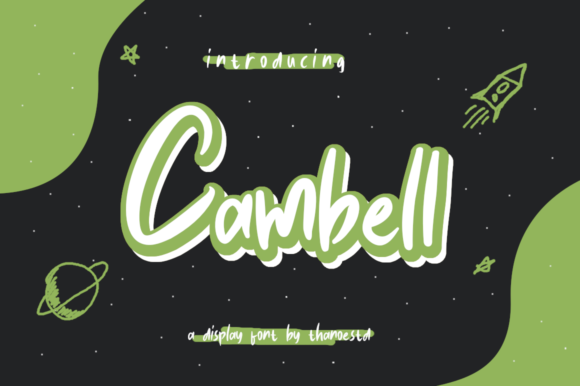
The Cambell Font: A Simple yet Stunning Handwritten Delight
I’ll never forget the time I was working on a wedding invitation project for a client, and I just couldn’t seem to find the perfect font. The design needed to be elegant, yet playful; formal, yet friendly. That’s when I stumbled upon the Cambell font, and it instantly became my go-to choice. In this article, I’ll share with you why I’m obsessed with this beautiful, cursive, and casual handwritten font, and how you can make the most of it in your designs.
An Honest Review of Cambell Font
- ✨ Simple and elegant design that’s perfect for a variety of projects
- 💕 Beautifully crafted to evoke a sense of friendliness and approachability
- 🎨 Versatile and can be used for logos, wedding invitations, headings, t-shirts, and more
While Cambell font is an excellent choice, there are a few things to keep in mind:
- 🤔 Limited character set compared to some other fonts, which may limit its use in certain contexts
- ⚠️ May not be the best choice for body text, as it’s designed more for headings and titles
The Backstory of Cambell Font
Cambell font was designed with the intention of creating a simple, yet elegant handwritten font that could be used for a variety of design projects. The designer aimed to create a font that was both friendly and approachable, with a touch of sophistication. While the designer’s inspiration and background are not well-documented, it’s clear that Cambell font was crafted with love and attention to detail.
Q: What is Cambell font best used for?
A: Cambell font is a versatile font that can be used for a variety of design projects, including logos, wedding invitations, headings, t-shirts, and more.
Q: Is Cambell font suitable for body text?
A: While Cambell font is highly legible, it’s designed more for headings and titles. For body text, you may want to choose a font with a larger character set and more traditional typography.